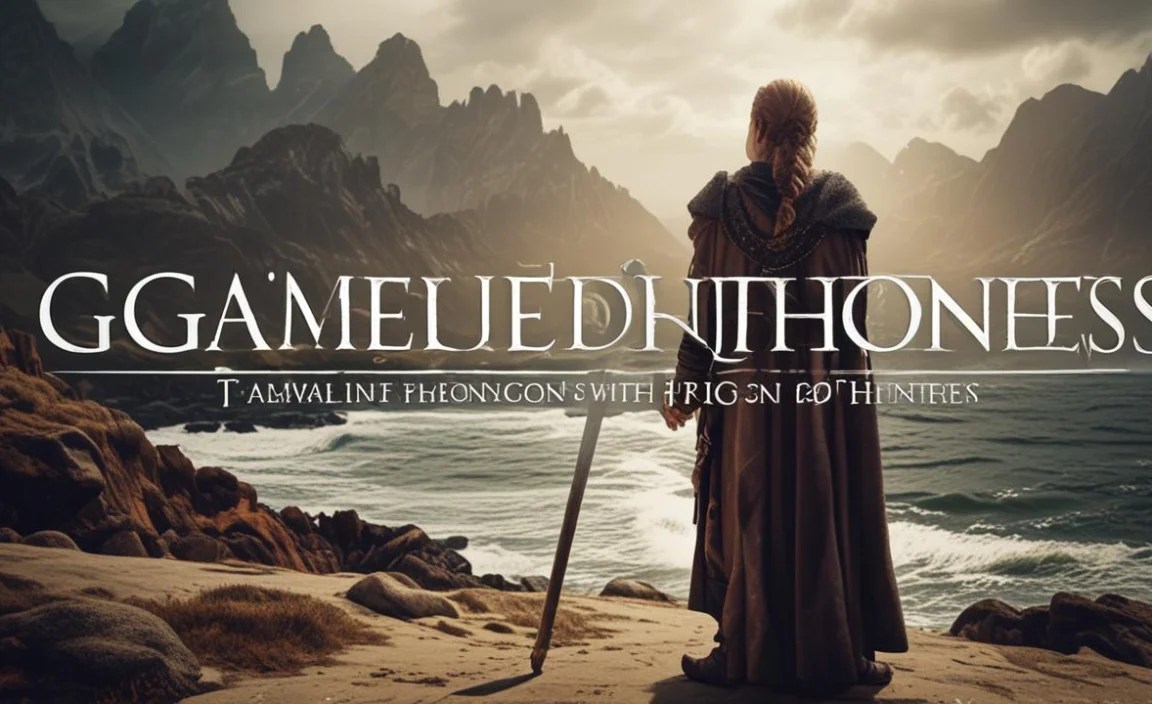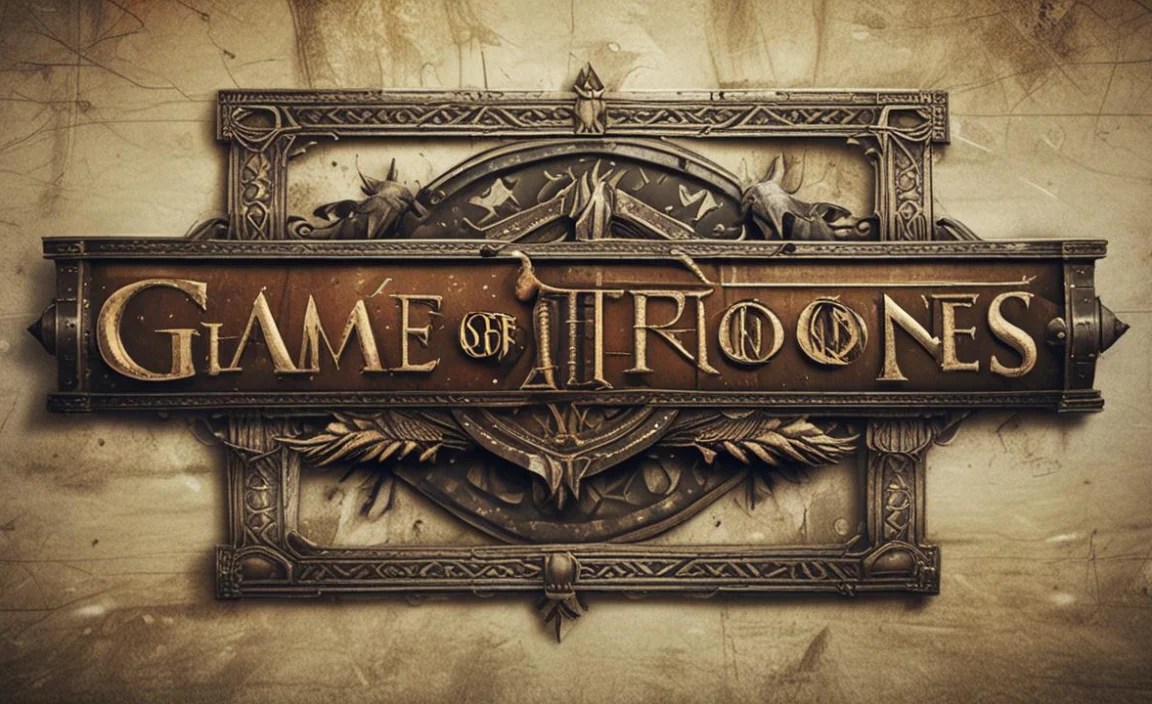
The Game of Thrones font is more than just a typeface; it’s an iconic symbol. Inspired by the medieval fantasy television series Game of Thrones, it draws from George R.R. Martin’s books. This font is used extensively in the TV show’s opening credits and related content.
Fans and designers have been inspired to create custom designs, posters, fan art, and merchandise. With its intricate serifs and uppercase letters, it captures a medieval aesthetic. The font is perfect for any project that needs a touch of fantasy, royalty, and intrigue.
The Game of Thrones font is a serif typeface that embodies the essence of the Seven Kingdoms. It features distinctive, sharp edges and highly stylized letters that mirror the ornate and ancient nature of the fictional world.
The font used in the Game of Thrones series’ logo is custom-designed. However, several designers have created versions of this font. Some of these versions are available for free through font generators and websites like Dafont and Google Fonts.
The font typically uses capital letters in its design, making it stand out with a bold, regal presence. This makes it especially suitable for designs like logos, posters, and character-driven artwork. The uppercase letter format gives the font a sense of grandeur. It perfectly fits the powerful noble families, like House Stark and House Lannister. The font also captures the lore surrounding the Iron Throne
Font Family And Styles
The Game of Thrones font family offers a variety of styles and weights, providing flexibility for different design needs. Below are the main styles and variations:
- Regular: The standard font style, used for most design projects.
- Bold: Adds extra emphasis and strength to designs, making it perfect for titles and logos.
- Italic: Used to create a more dynamic, slanted effect, ideal for accentuating specific parts of text.
- Bold Italic: Combines bold and italic styles for added impact and emphasis.
These variations allow designers to work with different weights and styles, adapting to various design requirements.
The font family is inspired by House Gothic. It aligns with the medieval fantasy theme of the Game of Thrones universe. These fonts are ideal for layout studio settings, offering high-quality typography for digital and print projects.
Similar Fonts to Game of Thrones
Several options exist if you’re looking for a font similar to the Game of Thrones typeface. Some of the most notable ones include:
- Trajan Pro: A highly versatile serif font, widely regarded as the closest match to the Game of Thrones logo. Its classical style evokes Roman inscriptions, much like the grandeur of the TV series.
- Cinzel: Inspired by Roman inscriptions and classical typefaces, this font has a similar noble and regal style, making it perfect for fantasy themes.
- Valofire: A bold and sharp typeface that embodies the essence of fire and fantasy, much like the Targaryen family’s dragons.
- Darka: A gothic and ornamental serif typeface with a historical and medieval aesthetic, perfect for creating designs based on ancient lore and royalty.
These fonts can be similar to your Game of Thrones-inspired projects, giving you the same bold and powerful effect without using the exact typeface.
Pairing the Game of Thrones Font
The Game of Thrones font works well in designs that need a gothic or medieval feel. It can also be paired with other fonts to create a balanced layout. For example, you can combine it with sans-serif fonts like Roboto or Montserrat for modern body text or descriptions. This contrast keeps the focus on the primary design elements.
Pair the font with a script or handwritten font for more elegant and royal projects. This combination adds an air of nobility and prestige, making it ideal for fan art or fictional world-building.
Where to Use the Game of Thrones Font
The Game of Thrones font is perfect for several applications:
- Posters: Create eye-catching designs inspired by the show’s world. Whether it’s a poster for a fictional kingdom or a design for your favorite noble family, this font gives your artwork the perfect medieval touch.
- Logos: Design logos for your fan art, websites, or even your own fictional project. The font gives off a dramatic and powerful tone, which can help elevate the brand.
- Merchandise: The font’s boldness makes it great for merchandise such as t-shirts, mugs, and posters, allowing fans to display their connection to the series proudly.
- Word Art: For anyone creating typography art or digital designs, the Game of Thrones font can be used to convey strong themes such as power, rivalry, and fantasy.
- Book Covers: If you’re an author working within the fantasy genre or writing fan fiction related to the Game of Thrones universe, this font is a great choice for book cover designs.
What Is The Font Style Of The Game Of Thrones Logo?
The logo uses a serif typeface with a gothic, medieval style.
What Are The Best Design Projects To Use The Game Of Thrones Font?
This font works well for posters, logos, fan art, and book covers.
How Can I Pair The Game Of Thrones Font With Other Fonts?
Pair it with sans-serif fonts like Roboto or a script font to create balance in your design.
Can I Use The Game Of Thrones Font For Digital Artwork?
Yes, it’s great for typography and digital artwork related to fantasy or medieval themes.